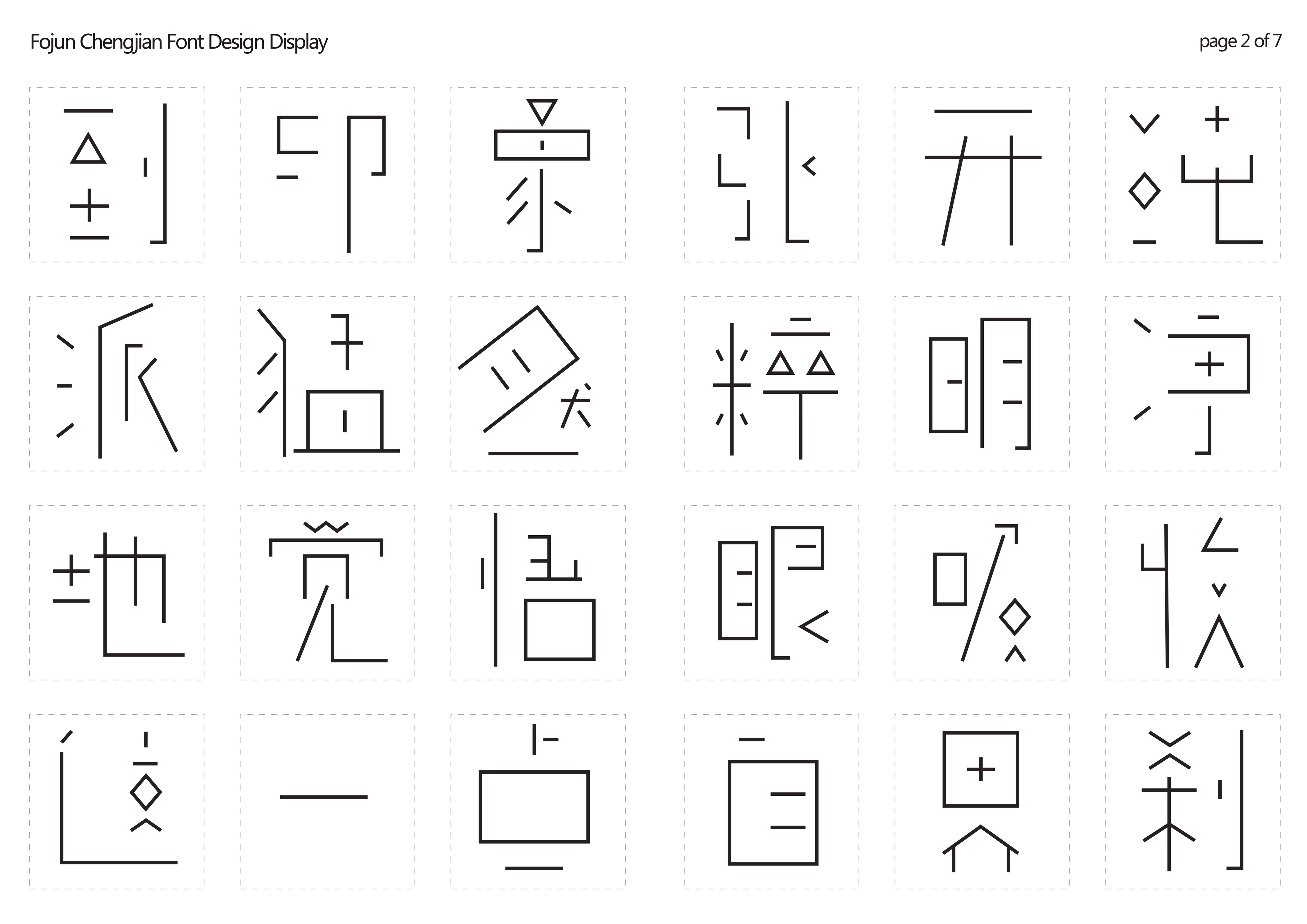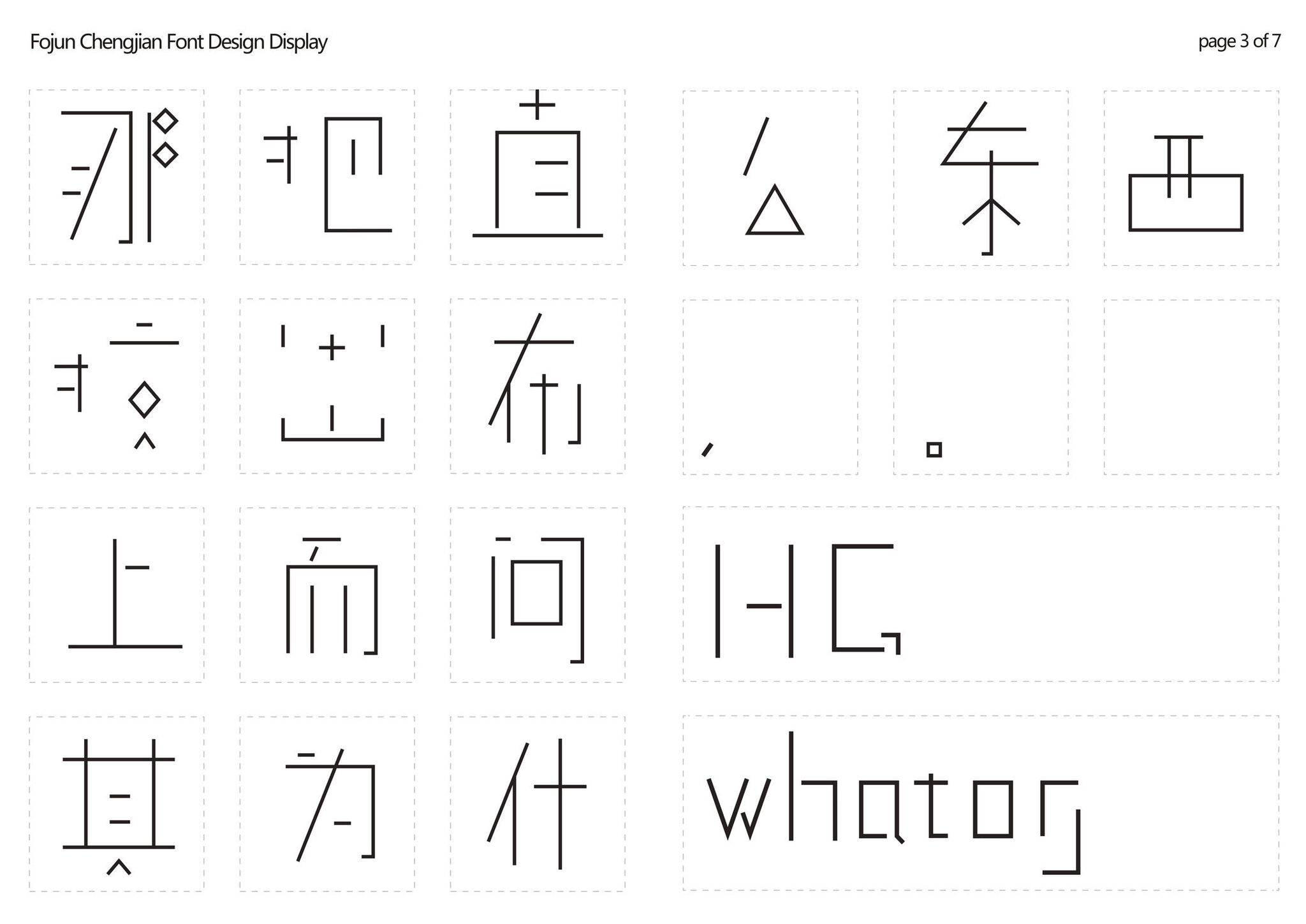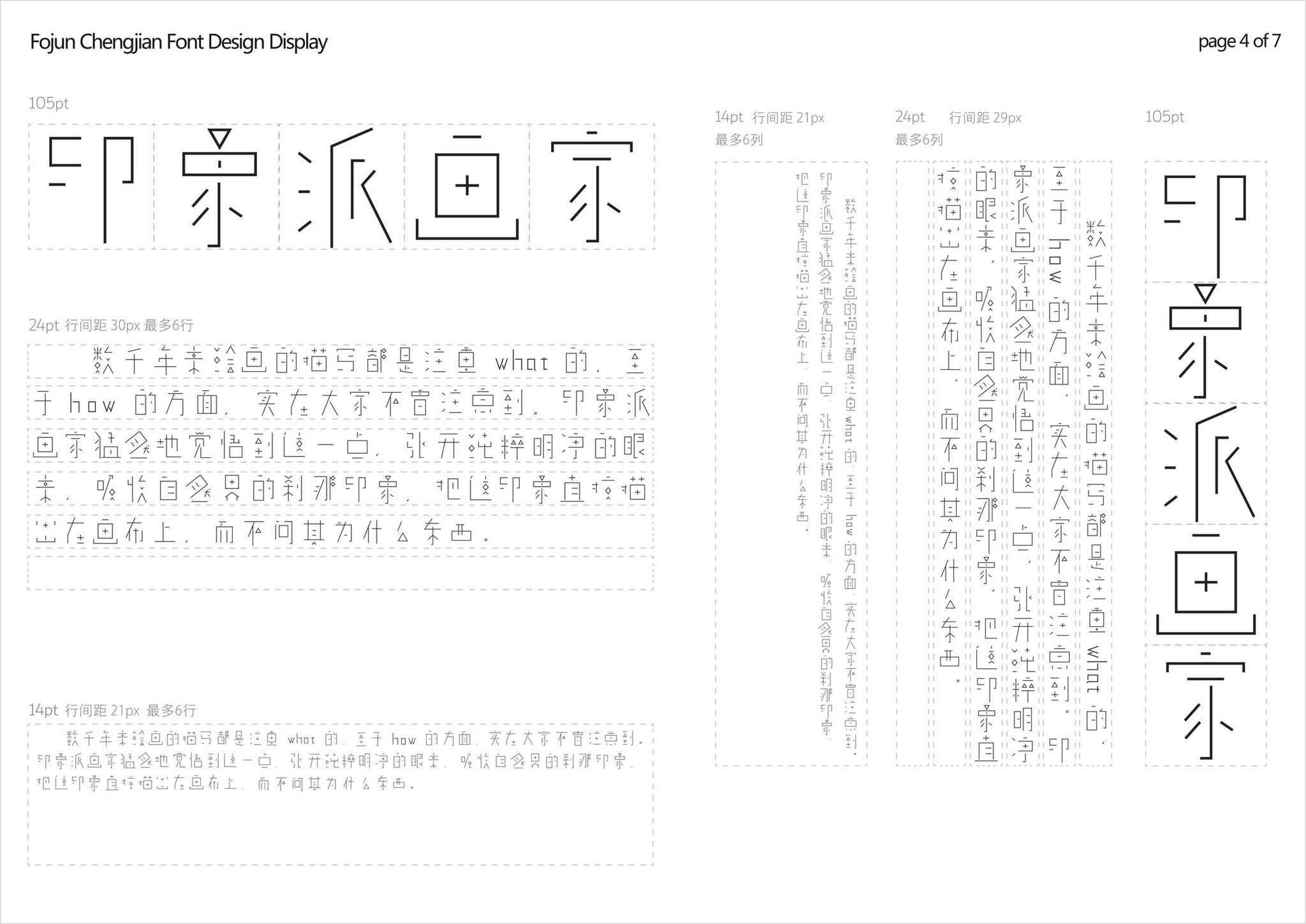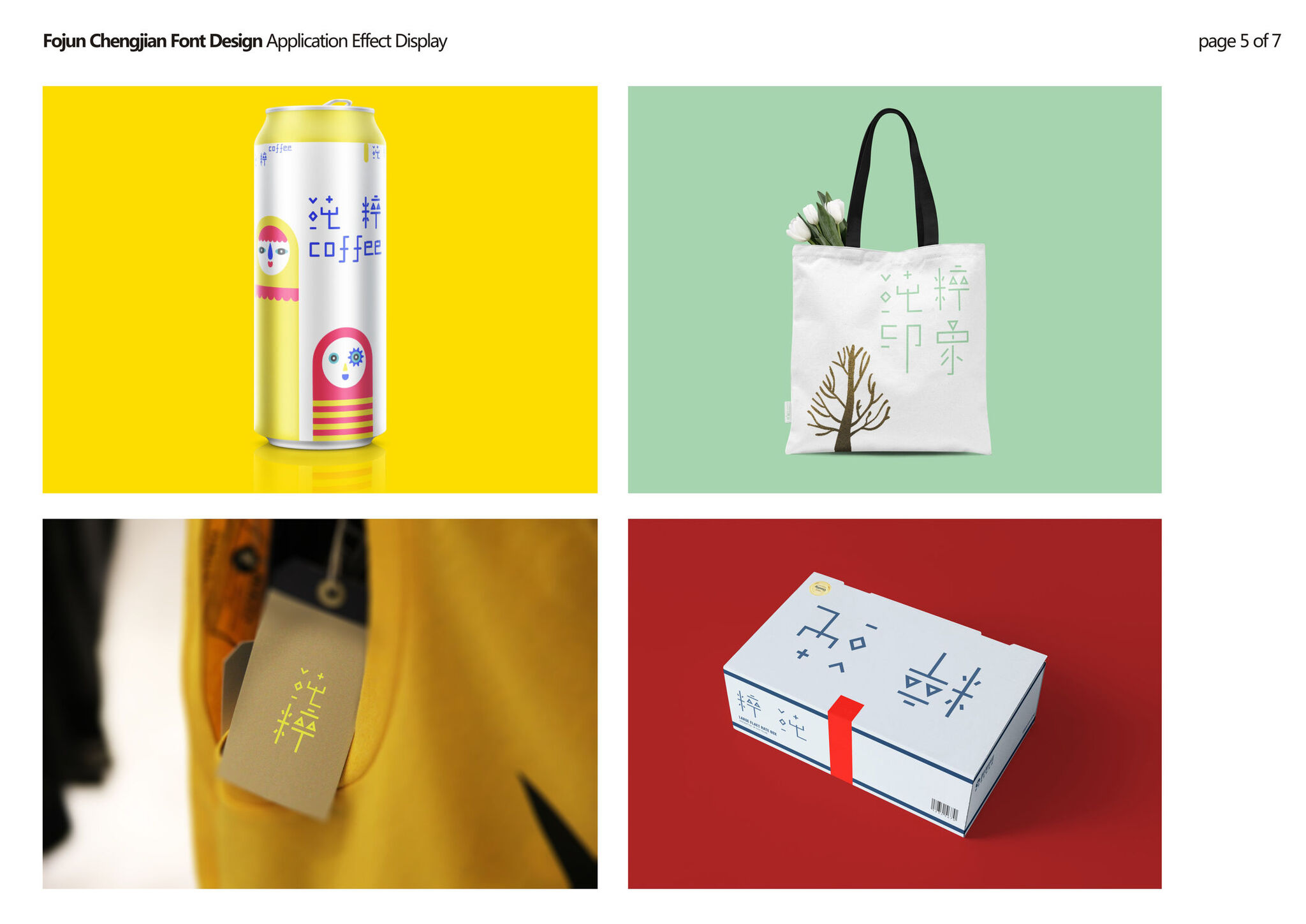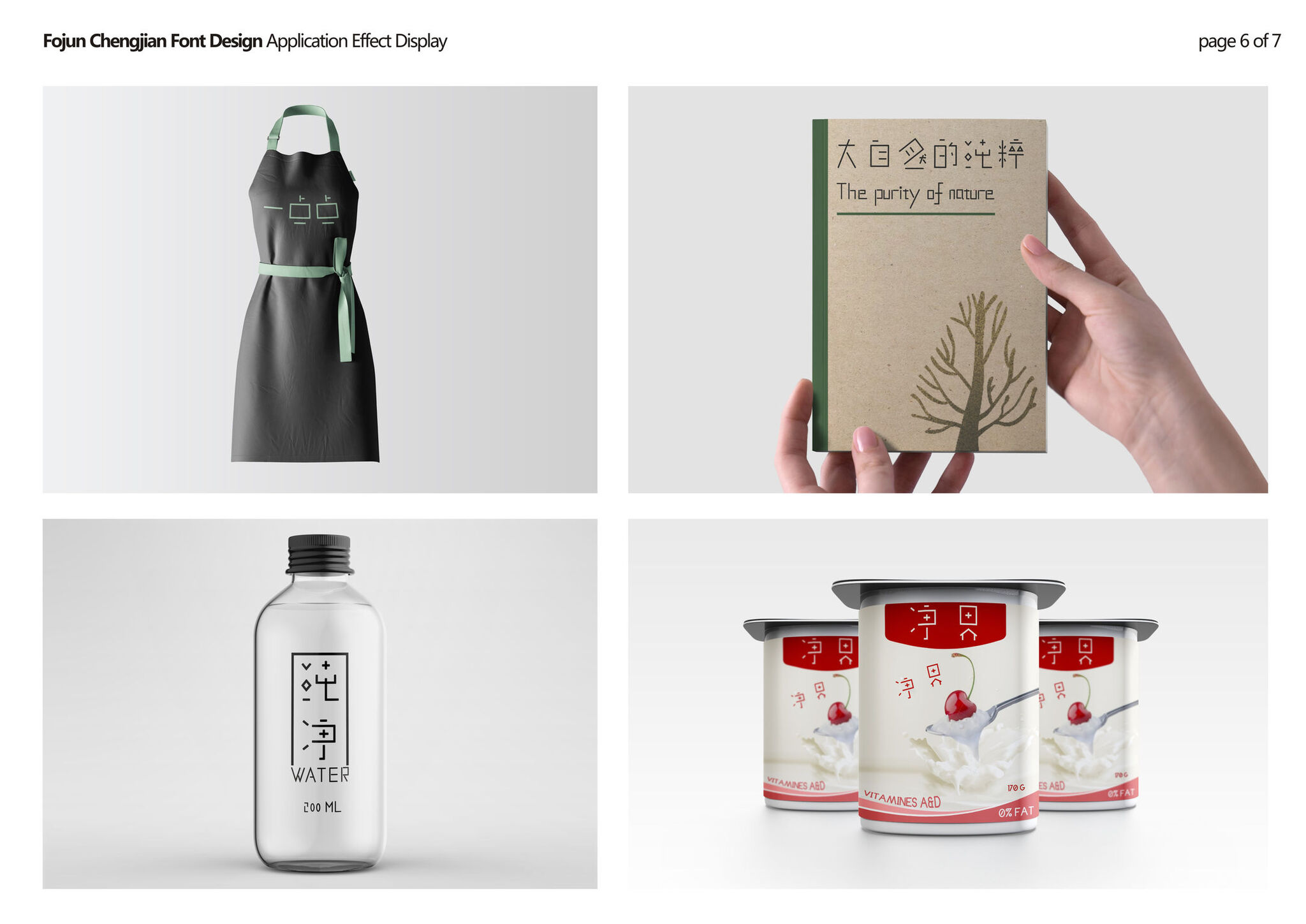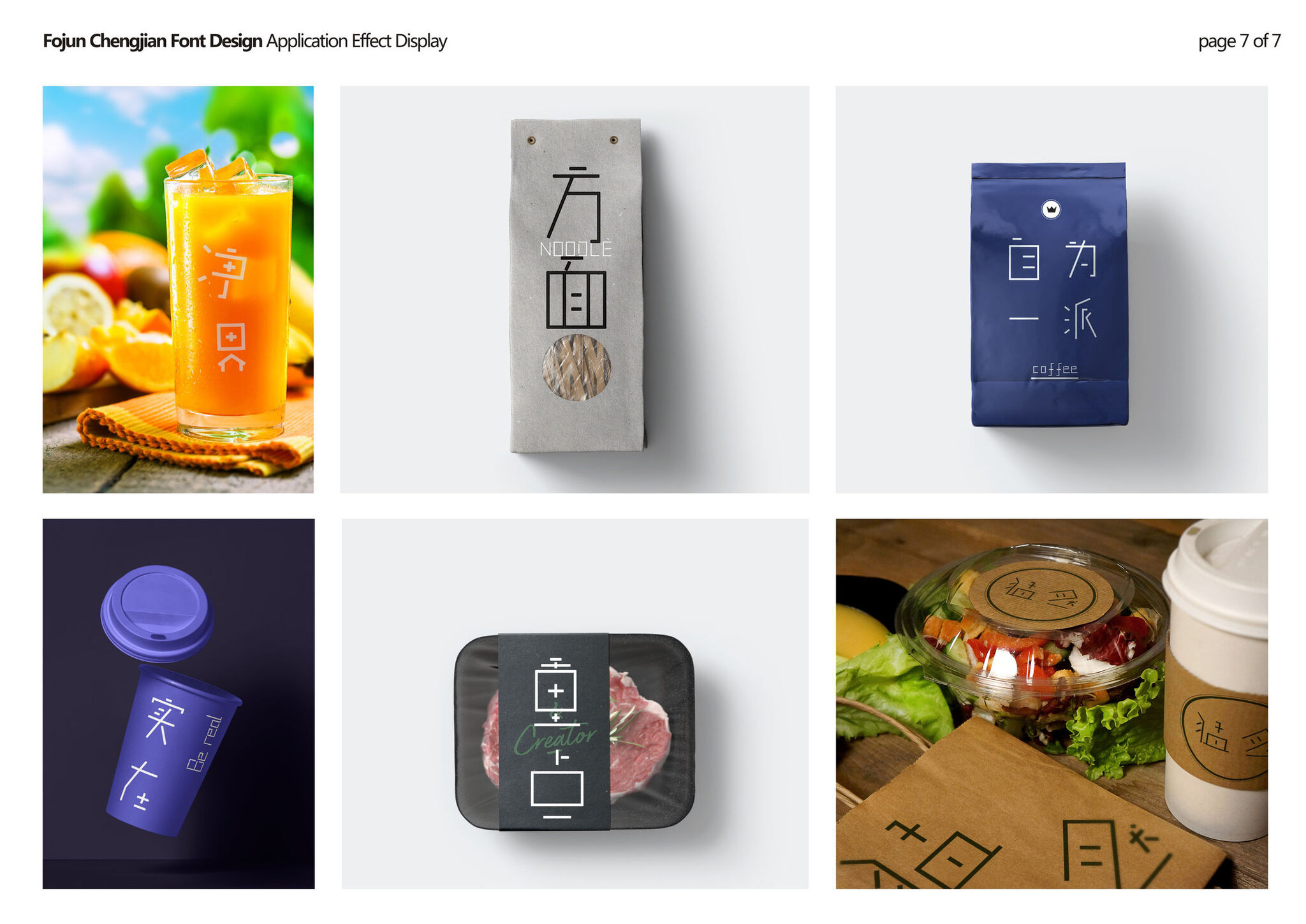
Fojun Chengjian Font Design
The basis of this font design is the line: using abstract geometric techniques, a minimalist and beautiful image of urban architecture is constructed. In addition to the horizontal and vertical foundations, it also incorporates the development of lines at a 45-degree oblique angle, while minimizing strokes to ensure recognition. In summary, a the structure of the design can be easily expressed as a geometric shape, forming a font with a unique structure, outstanding visual effects, and a high degree of fashion.